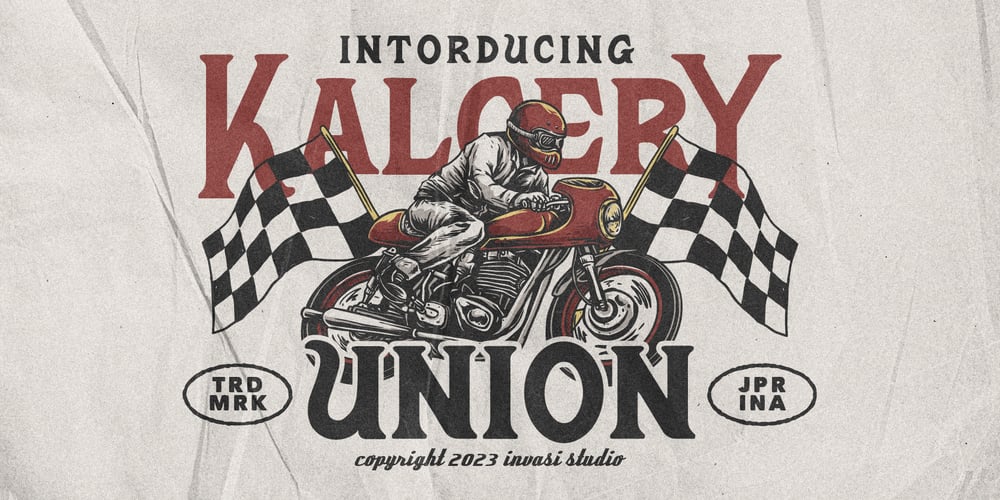
Kalcery Union Font Family was designed by Gha Arizal and published by Invasi Studio. Kalcery Union contains 1 styles and family package options. Kalcery Union is a striking serif all-caps display font that exudes a vintage style reminiscent of motorcycle club logos and posters. Its bold and impactful uppercase letters truly make a statement, while the meticulously crafted glyphs feature special swash characters, adding an extra touch of uniqueness and charm to your designs. Notably, this font showcases special characters with varying heights in both uppercase and lowercase, further enhancing its versatility.